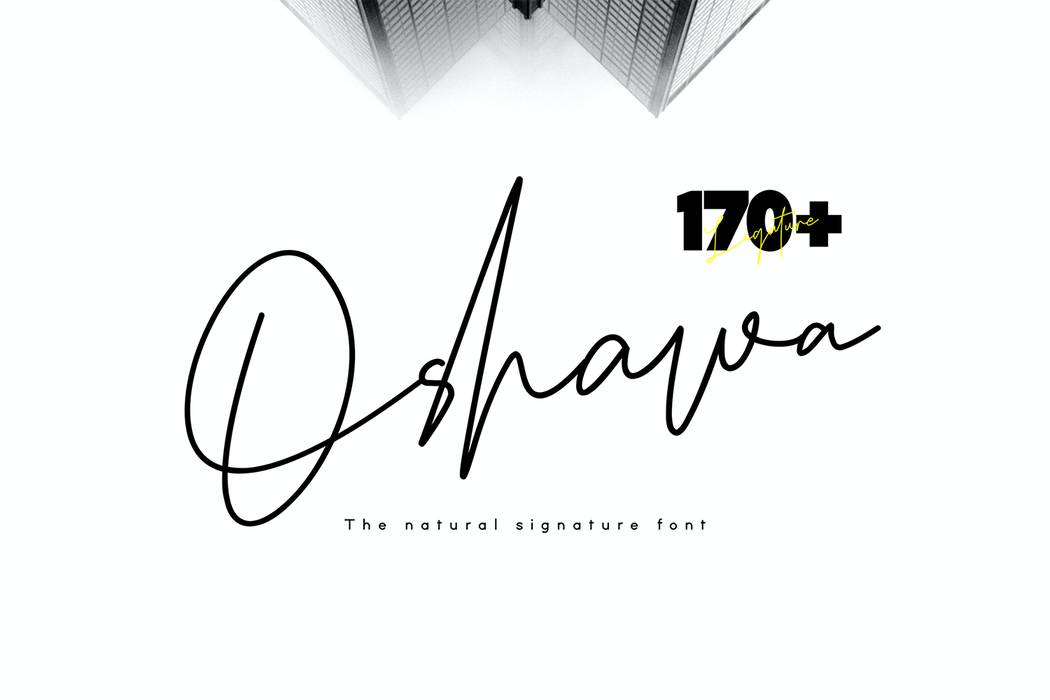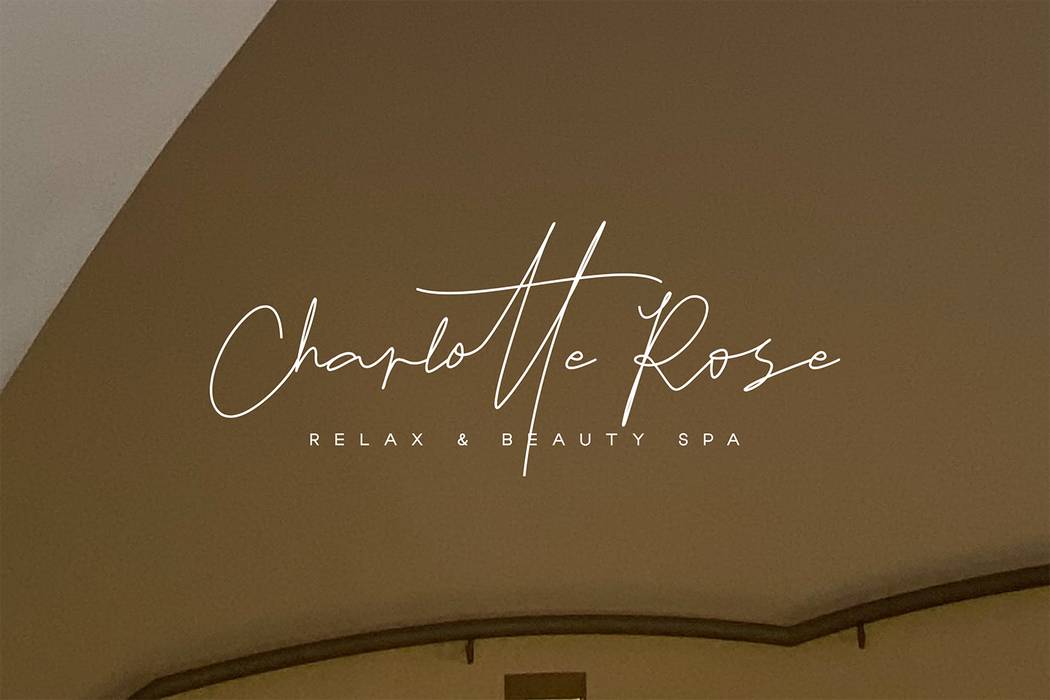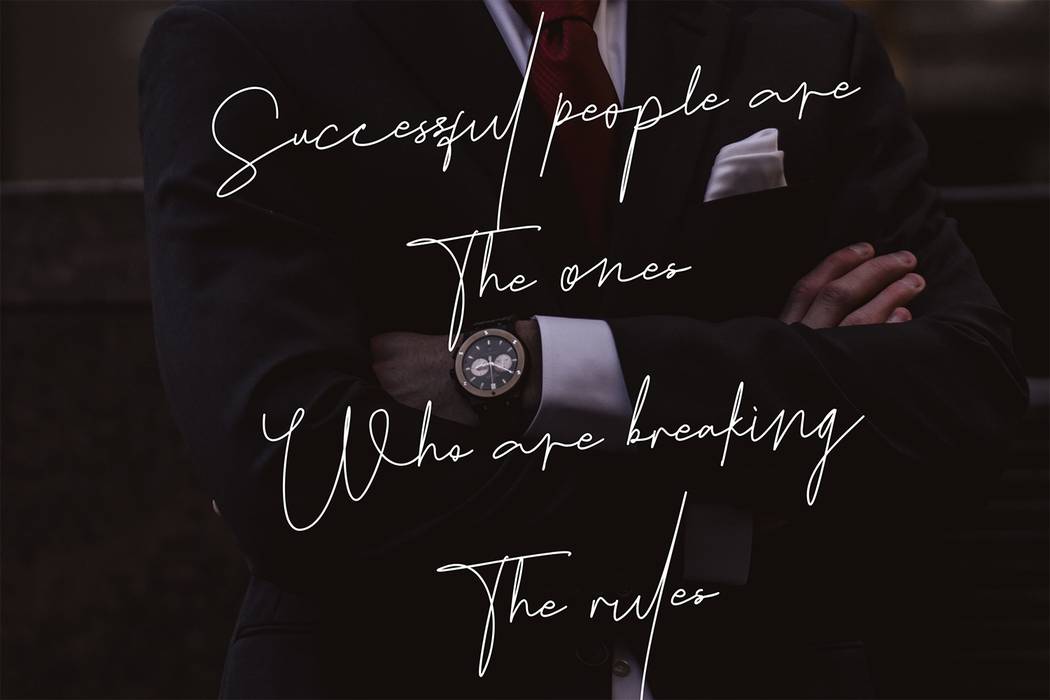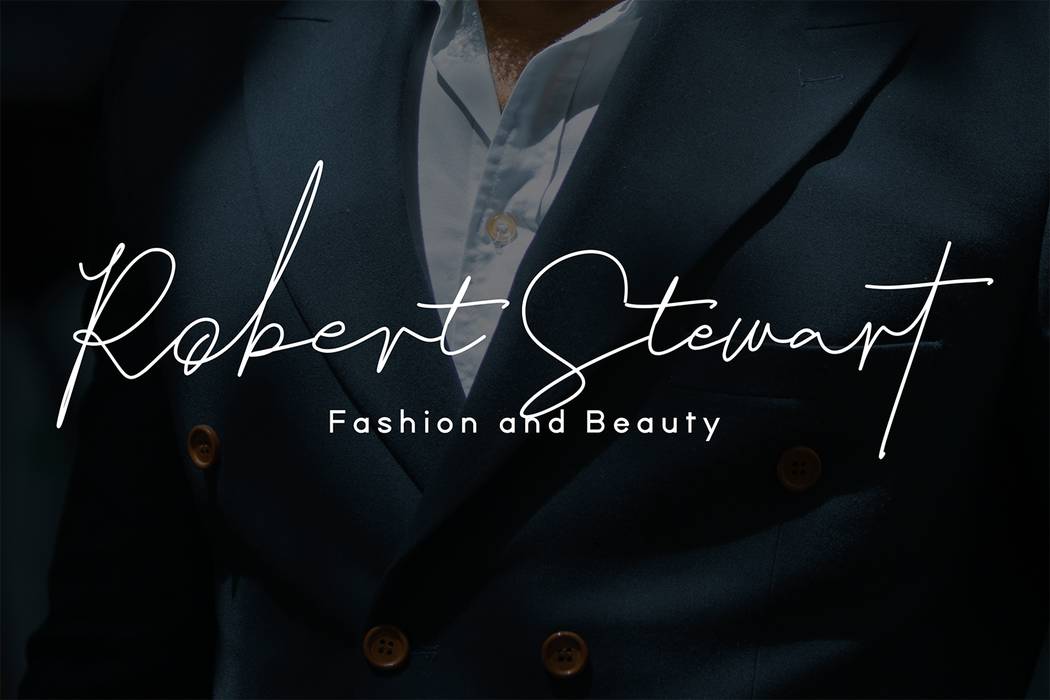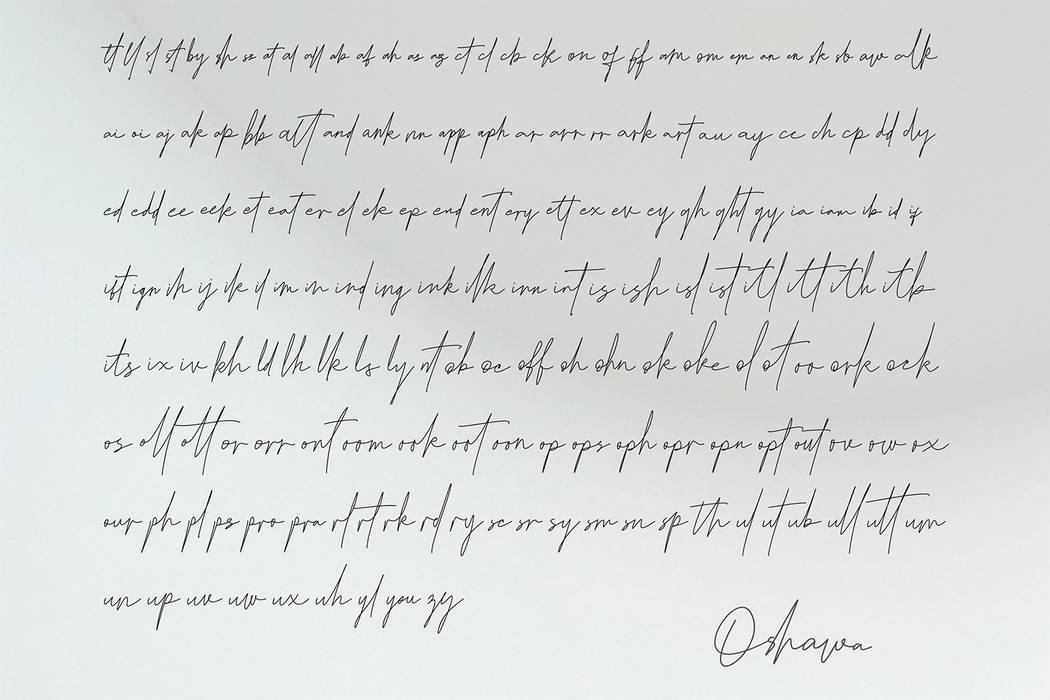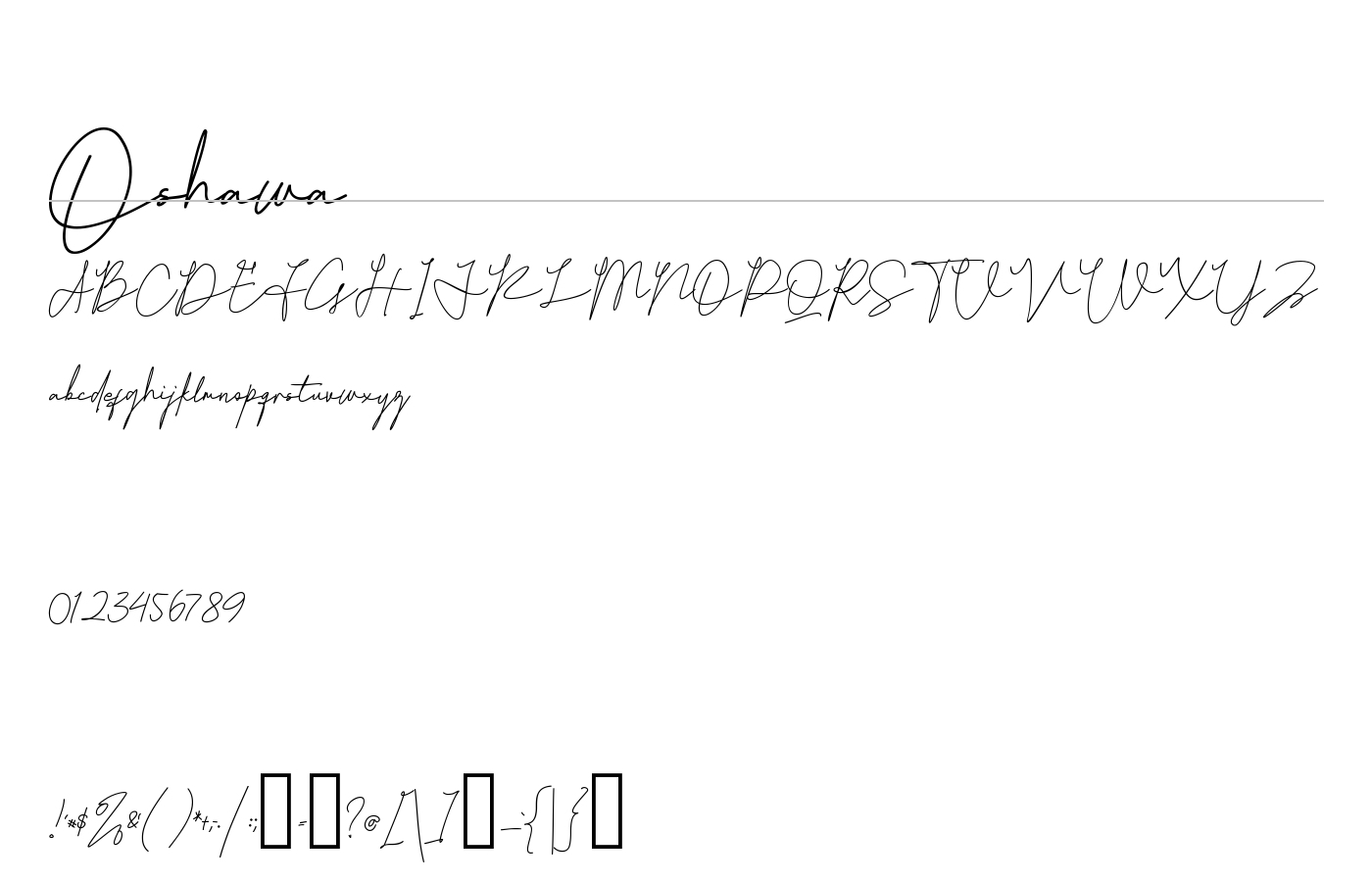
Oshawa is a delicate, handwritten script font with a light, airy feel, featuring tall, slender letterforms and smooth, flowing lines. Its elegant and casual style suits personal branding, wedding invites, and creative projects where a refined yet approachable touch is desired. This font works well in headlines or decorative text where a graceful, artistic impression is needed.